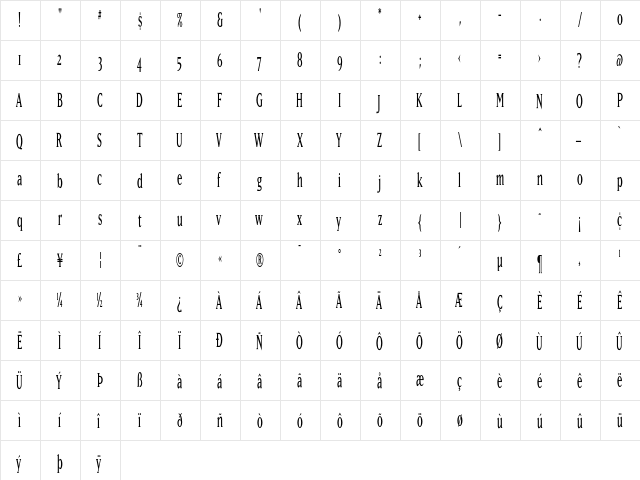
MatrixNarrowOldstyle Regular
Design Context for MatrixNarrowOldstyle Typeface
MatrixNarrowOldstyle carries the refined structure of traditional serif typography, with bracketed terminals and considered proportions that communicate credibility and craft. Its narrow stance lets it pack a punch even in space-constrained designs.
Pro Tip: Set MatrixNarrowOldstyle with slightly loose tracking in headlines to let each letterform's detail read clearly at display sizes.